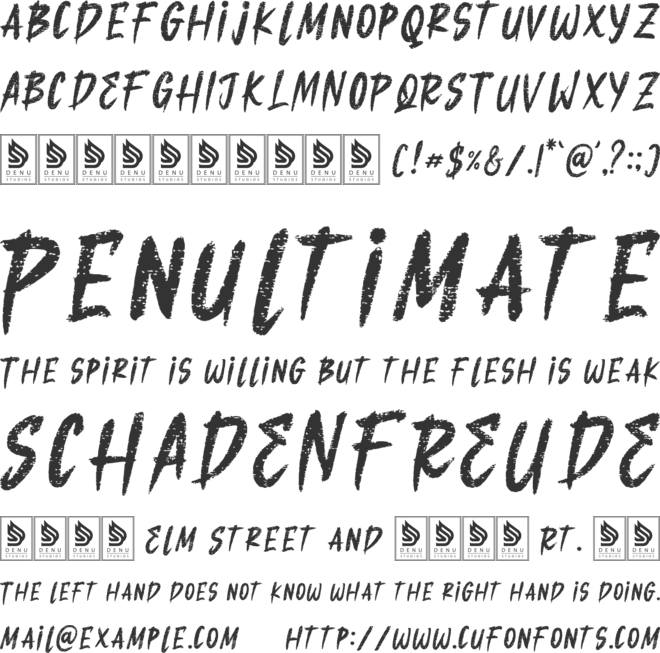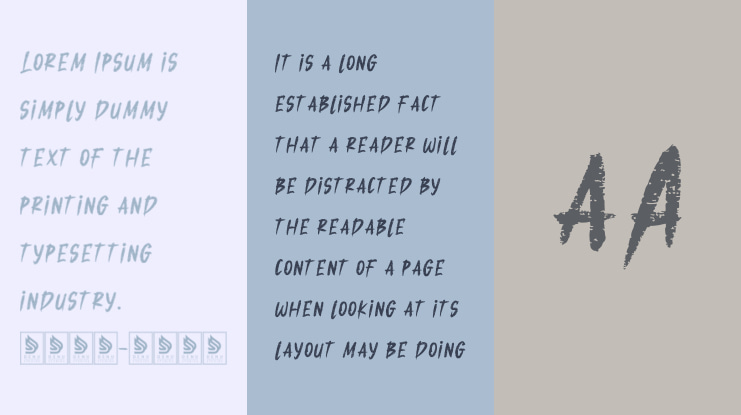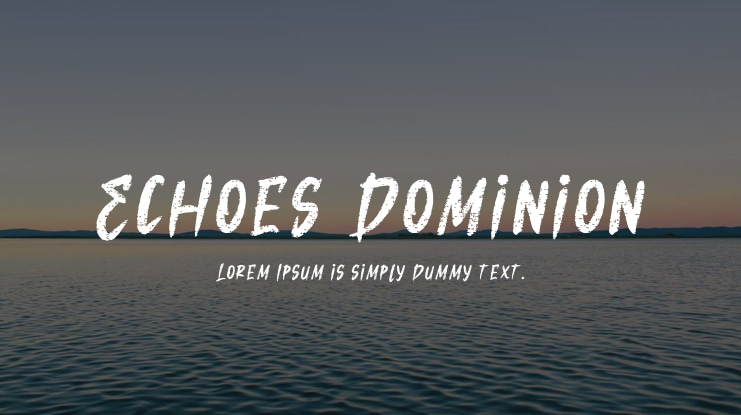
**Echoes Dominion | Marker Font**
Echoes Dominion Marker Font is suitable for any projects such as: - Logos - Branding projects - Homeware designs - Product packaging - Mugs - Quotes - Posters - Shopping bags - T-shirts - Book covers - Name cards - Invitation cards - Greeting cards - Labels - Photography - Watermarks - Special events
...and all your other lovely projects that need a Marker Font taste.